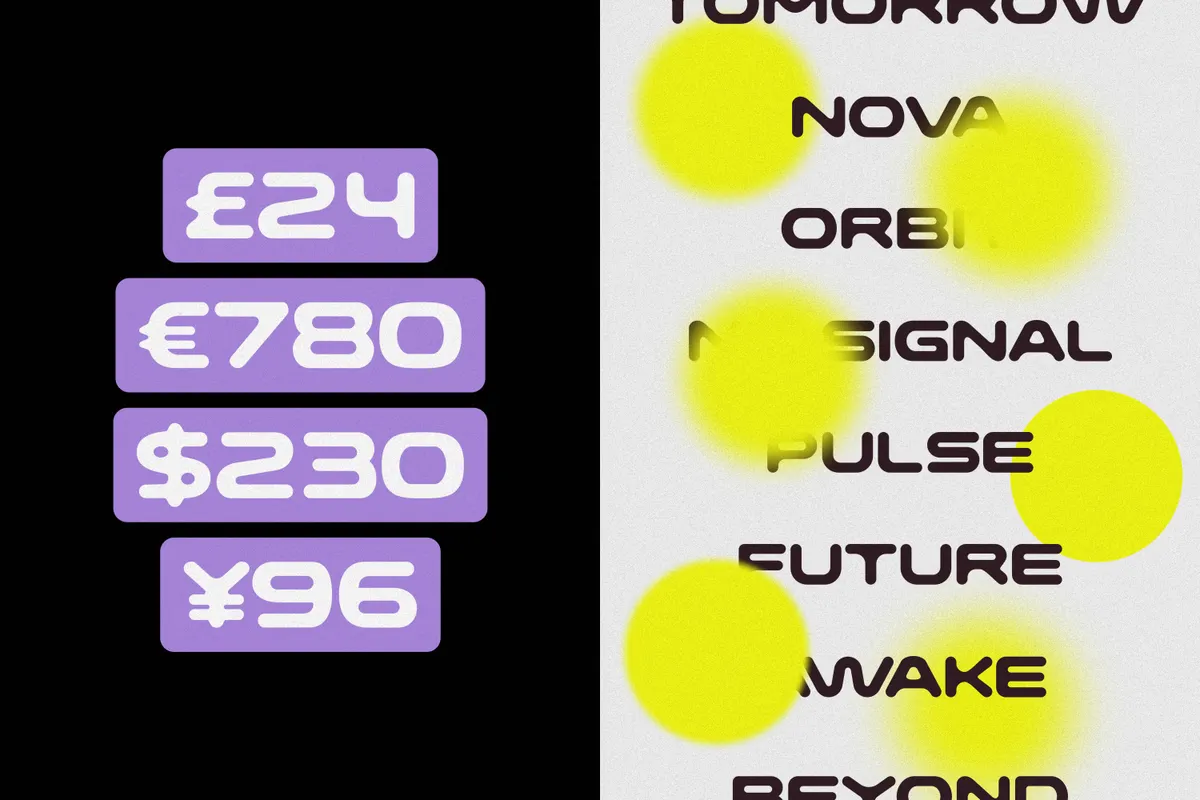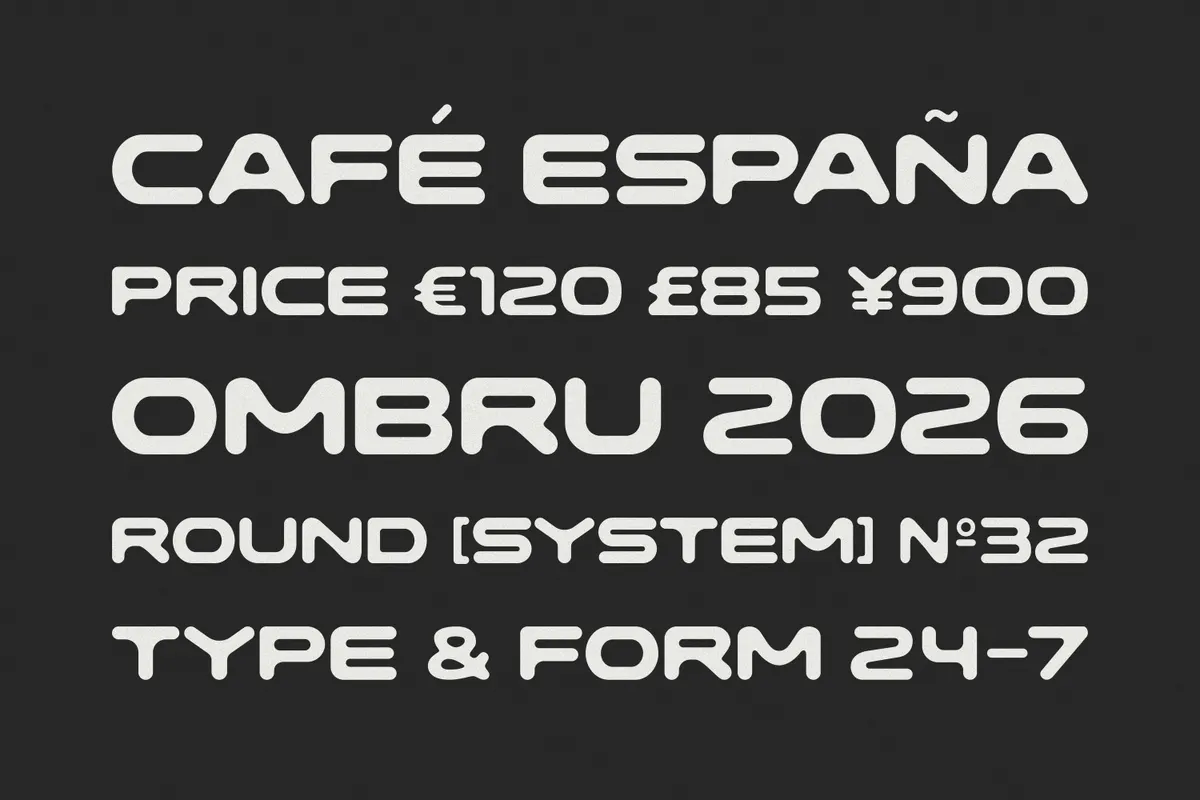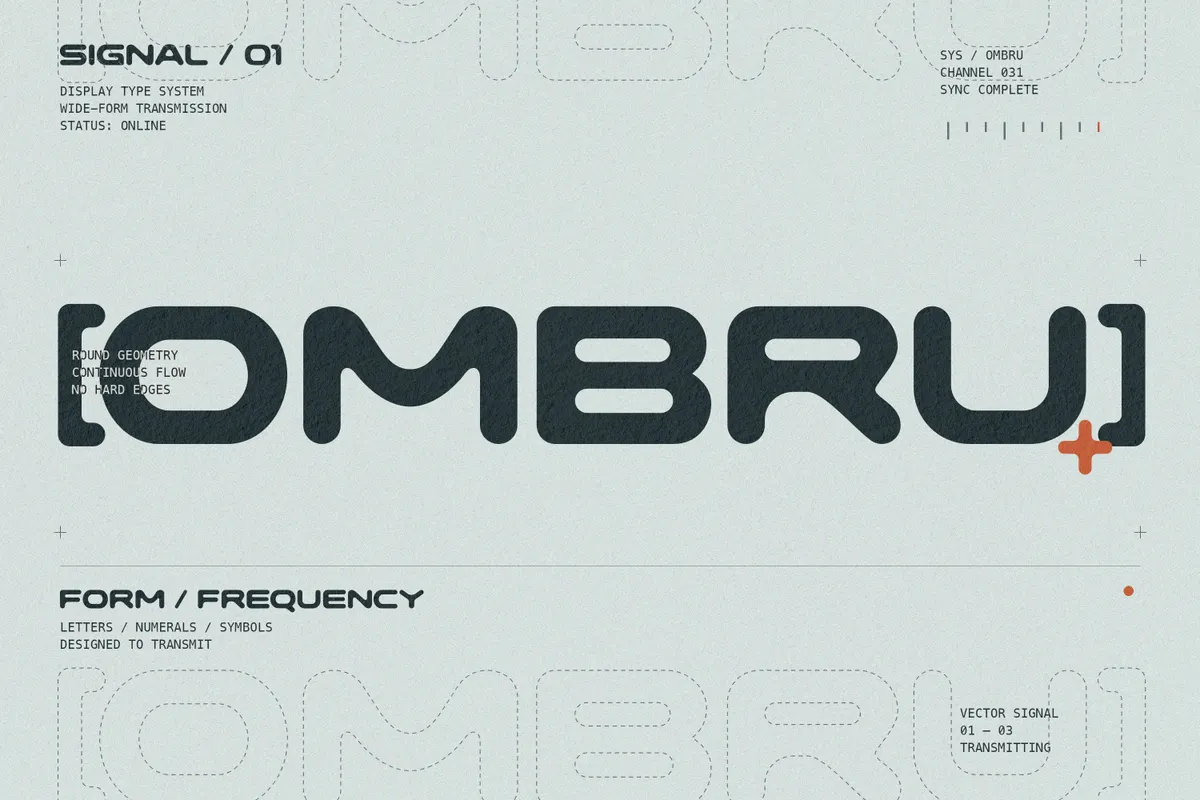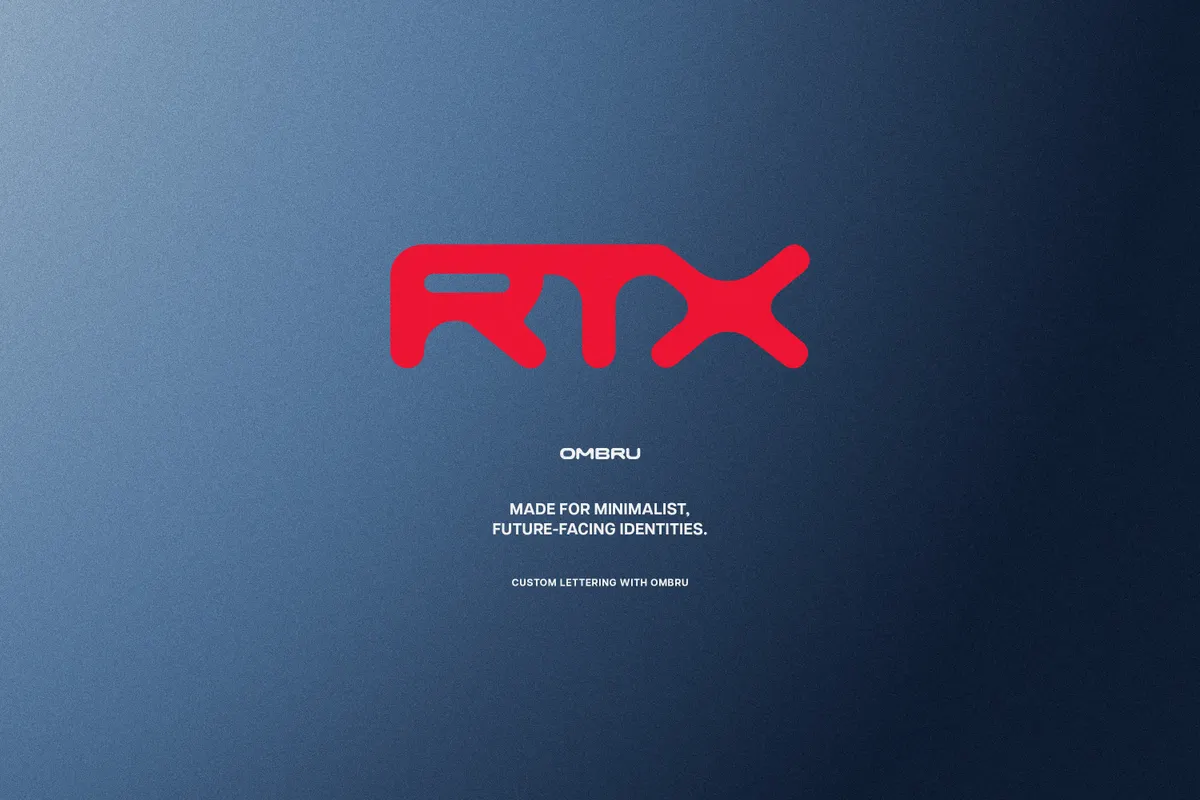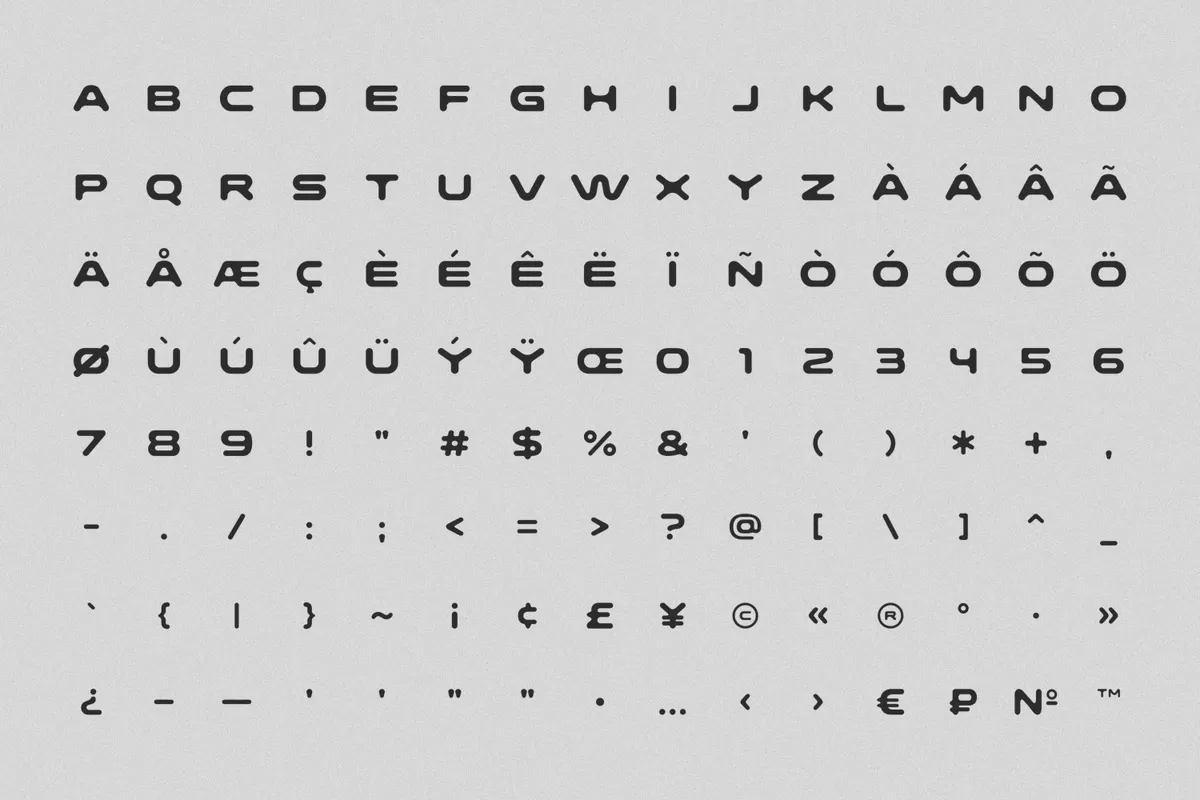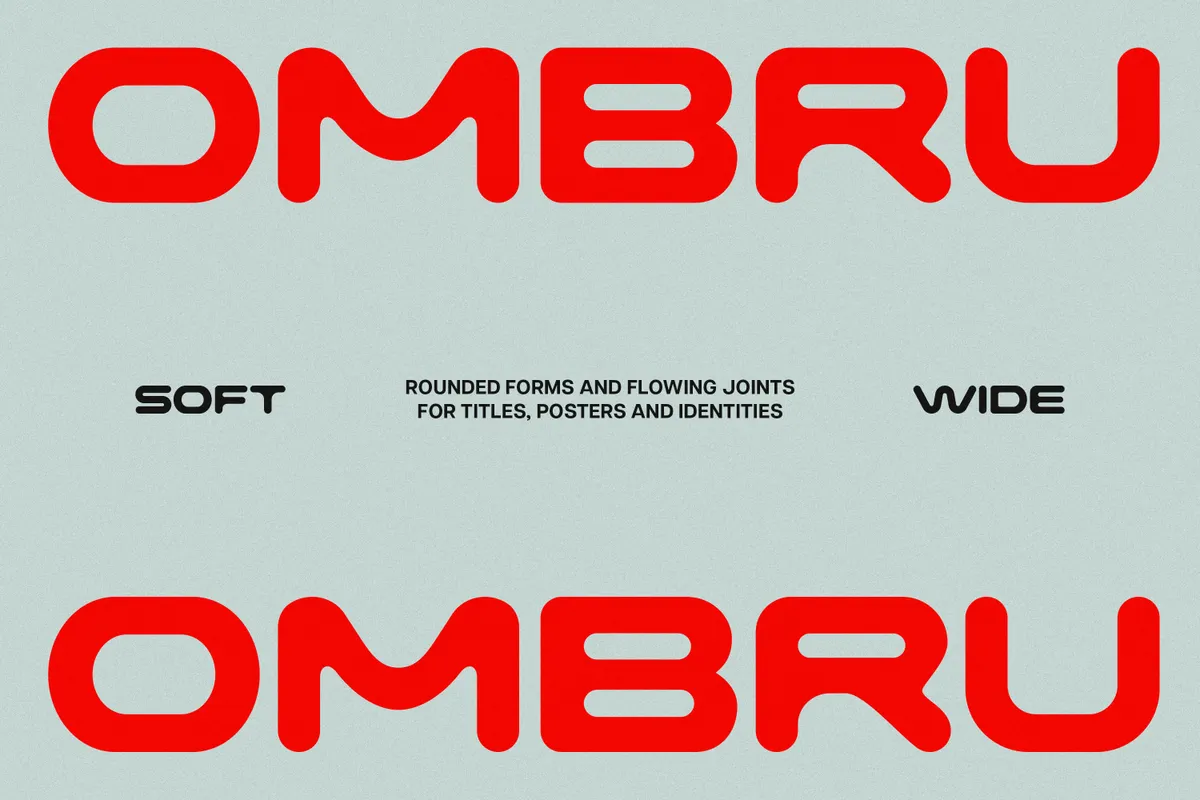
OMBRU — Bold Futuristic Display Font
OMBRU is a futuristic, rounded display font drawn as a single unicase alphabet. Every terminal closes on a half-circle and every joint flows into the next curve. The proportions are wide and heavy, turning a single word into a block of solid form. The language bridges soft retro-futuristic tech lettering and Y2K plastic, and it holds at any size a logo needs.
- unicase design — uppercase and lowercase are the same letters;
- 181 characters: letters, numerals, punctuation, symbols and currency;
- 60 accented characters covering 16 Western European languages;
- currency signs: $ ¢ £ ¥ € ₽;
- symbols: © ® ™ №;
- 20,768 hand-checked kerning pairs.
One case, one alphabet
Unicase here is literal. Capitals and lowercase are the same letters, with the same widths and height. The shift key changes nothing on screen. A name typed as "Ombru", "OMBRU" or "ombru" sets identically, which removes the usual argument about case in a wordmark. Size, color, and spacing become the only levers for hierarchy, and a mixed-case caption pasted from a brief comes out as one even line, not a ragged one.
Built wide on purpose
The letters are broad; the spread between the narrowest and the widest is extreme. A five-letter logotype takes the horizontal space a seven-letter word usually needs. The O is a wide ellipse, not a circle, and the flat-sided letters stretch to match it. The rhythm holds even across a word. Stems measure 190 units against a cap height of 700, and the weight remains in display territory at every size.
20,768 kerning pairs
The kerning table is flat, not class-based: 20,768 individual pairs, 63 percent of every combination the character set allows, each one a separate decision. A geometry this round needs that, because a bowl next to a diagonal and a bowl next to a flat stem open completely different gaps.
Typing in lowercase and typing in capitals produce the same letterforms at the same widths — all 26 pairs share one drawing, and cap height and x-height are both 700 units. Nothing is lost if a client sends copy in sentence case; it sets as an even all-caps line on its own.
Not from the case itself: build hierarchy with size, color, tracking, or a second typeface. Pairing OMBRU headlines with a neutral sans for body copy is the usual route, since the font is designed for display sizes, not paragraphs.
The kerning is built in, 20,768 pairs. A line set with zero tracking is already balanced. Tighten with negative tracking when a lockup needs to lose width, down to roughly minus 60. The median gap between letters measures 68 units. Avoid stretching the glyphs horizontally. The curve radii are fixed, and stretching flattens them.
Letters and numerals sit entirely between the baseline and 711 units, with no ascenders or descenders apart from the tail on Q. Lines can be set far tighter than the font's default metrics suggest. Accented capitals reach 1053 units. Leave headroom on any line with an Å, Ä or Ô.
English, French, Spanish, Portuguese, Italian, Dutch, Swedish, Danish, Norwegian, Finnish, Irish, Catalan, Basque, Galician, Afrikaans and Luxembourgish, with 60 accented characters. The ruble sign is included as a currency symbol, but the set has no Cyrillic letters, no eszett, and no Central European diacritics.